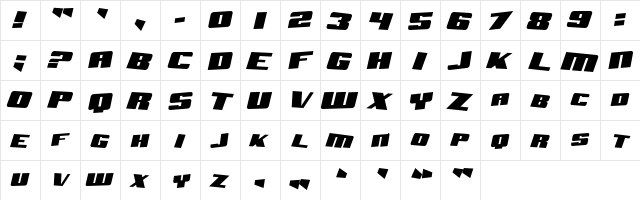
SF Aftershock Debris Solid Italic
Design Context for SF Aftershock Debris Solid Typeface
SF Aftershock Debris Solid is a composed and adaptable typeface that performs quietly and consistently across a wide range of design contexts. Its italic angle brings a sense of urgency and motion to the letterforms.
Pro Tip: Try SF Aftershock Debris Solid for annotation and caption copy alongside an upright companion — the contrast in angle creates a dynamic but ordered typographic system.